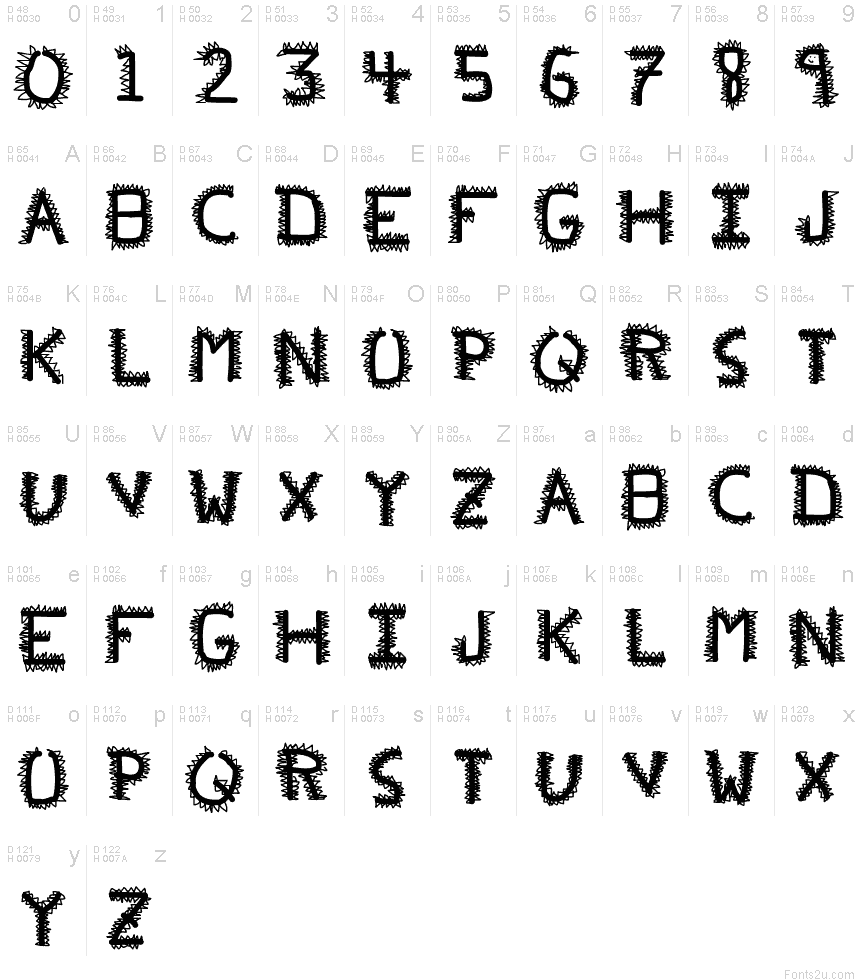
PF Very Very Bad Font 20, from Planck Foam Scholarly Dragon Press, is a free punk-horror display font with letters that look gnawed, spiked, and roughly scratched into place. The alphabet leans on ragged edges and little thorny protrusions, giving even simple shapes a twitchy, handmade menace that feels more basement flyer than polished poster.
That makes it a natural fit for zines, horror posters, band artwork, mixtape covers, and title cards where the lettering should feel unstable and slightly dangerous. As a free font, it also suits quick logos, monograms, and short cover lines, because the repeated sawtooth edging gives brief words an immediate grimy attitude.
Here again is something I find myself doing when taking notes and someone needs something repeated for the umpteenth time I sort of fade out of where I am and start scribbling around the letters in my notes.